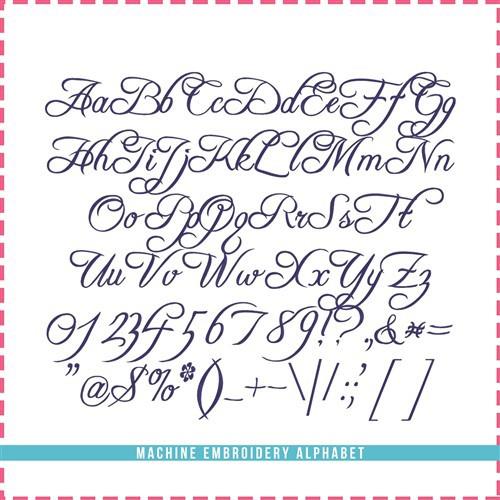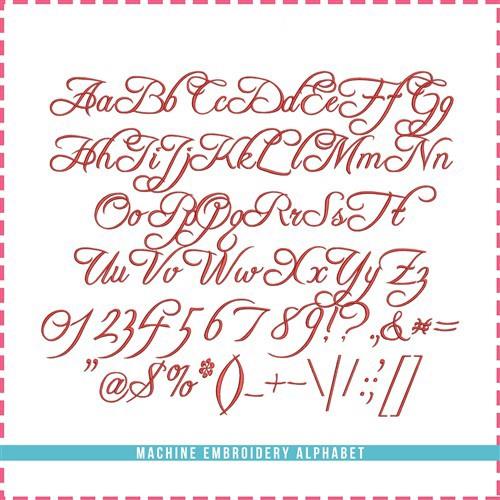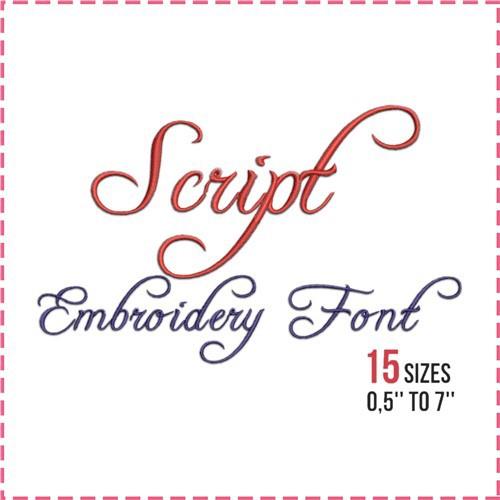
Maya Kreations is happy to present Script machine embroidery font which has This flowing script machine embroidery font is ideal for monogramming on items like pillows and bags. Available in PES, DST & 6 other formats, it includes 15 sizes ranging from 0.5 to 7 for versatile applications. included. If you would like to view more embroidery fonts and alphabets please search our embroidery fonts page.